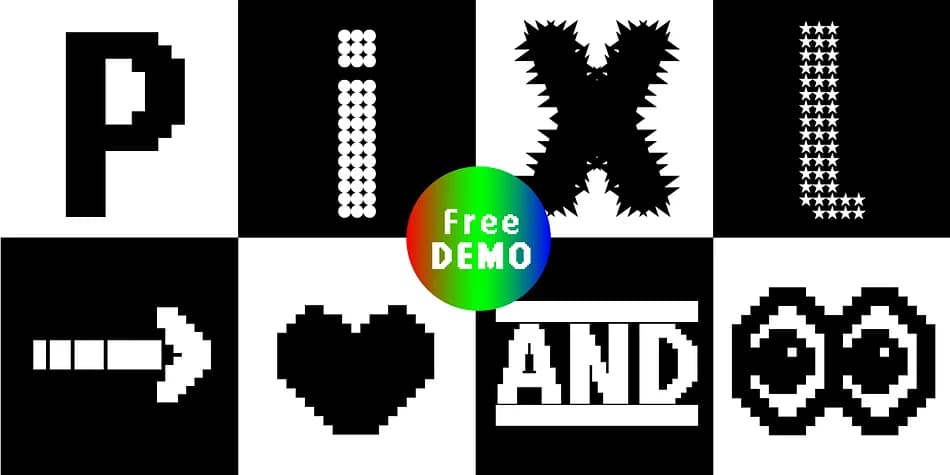
About PIXEL pattern Font
That retro-digital energy hits hard, mixing nostalgic pixel aesthetics with contemporary design versatility in equal measure. PIXEL pattern by Manuel Viergutz (Typo Graphic Design) brings eight distinct typographic personalities to one cohesive system. Each variation, from the rigid geometric Square to the playful Star Spike, carries the same chunky-grid sensibility while remaining flexible enough for different moods and contexts.
This is where it really shines: boutique cosmetics packaging that wants visual personality without relying on photography, tech startup pitch decks needing a friendly yet structured typographic backbone, Instagram Story graphics with actual presence and impact, and experimental event posters for independent galleries or music venues. The typeface ships with 830 glyphs including decorative icons, arrows, geometric shapes, and built-in visual surprises that reward exploration. Type #LOVE or #SMILE and the OpenType ligatures reveal hidden emoji-style rewards. Eight stylistic sets let you refine the overall look without switching fonts entirely, and support for 93 languages keeps things inclusive across European and African markets.
PIXEL pattern Font is a versatile dingbats font that works for both headings and body text. Pair it with a contrasting sans-serif or serif font to add visual interest and a clear distinction between titles and body copy.
PIXEL pattern Font